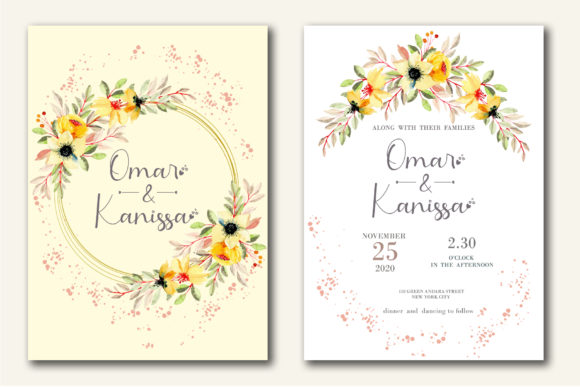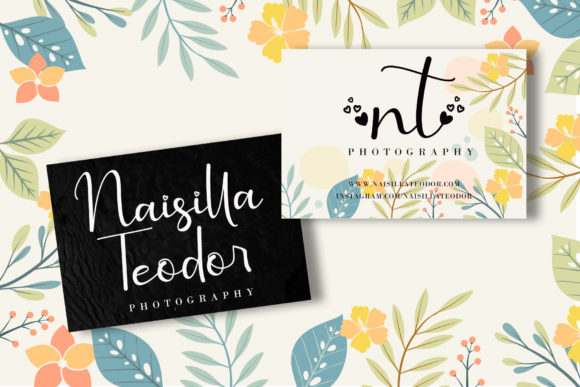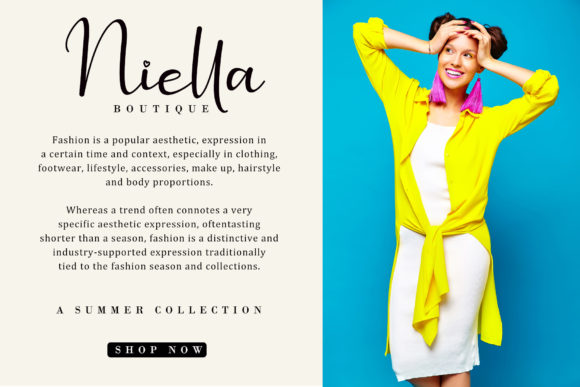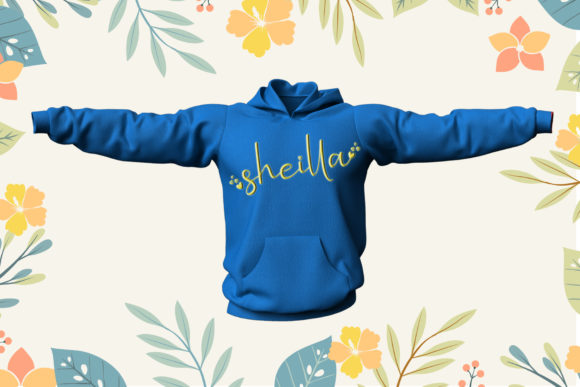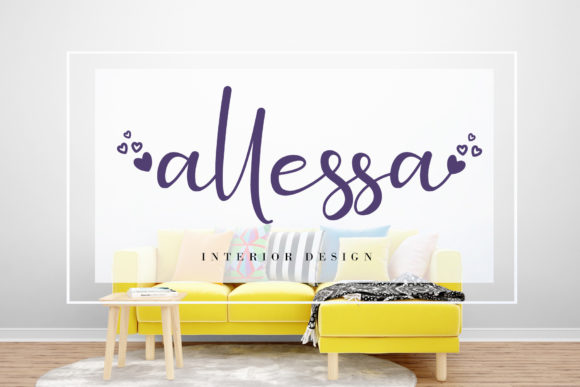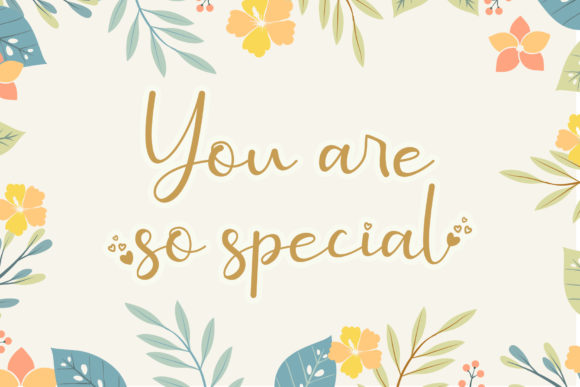
Introducing Benillia Font: The Sweet and Delicate Handwritten Font for Your Design Needs
Are you a designer or crafter looking for a font that can add a touch of elegance and sophistication to your designs? Look no further than Benillia Font. This beautiful handwritten font is perfect for a variety of design projects, including wedding invitations, thank you cards, quotes, greeting cards, logos, business cards, and more.
What Makes Benillia Font So Special?
Benillia Font is a sweet and delicate handwritten font that features a varying baseline, smooth lines, gorgeous glyphs, and stunning alternates. Its unique characteristics make it stand out from other fonts, giving your designs a personal and handmade touch. Whether you’re creating a romantic wedding invitation or a simple thank you card, Benillia Font is sure to impress.
Weddings and special events are a perfect match for Benillia Font. Its elegant and refined appearance makes it ideal for creating beautiful wedding invitations, save the dates, and thank you cards. The font’s delicate lines and smooth curves will add a touch of romance and sophistication to your designs, making them truly unforgettable.
Versatile and Easy to Use
Benillia Font is not just limited to wedding designs. Its versatility makes it suitable for a wide range of projects, including:
- Wedding invitations and save the dates
- Thank you cards and greeting cards
- Quotes and posters
- Business cards and stationery
Key Features of Benillia Font
Here are some of the key features that make Benillia Font so special:
- Varying baseline for a natural, handwritten look
- Smooth lines and curves for a elegant appearance
- Gorgeous glyphs and stunning alternates for added creativity
- Perfect for designs that need a personal and handmade touch
Why Choose Benillia Font?
With so many fonts available, why choose Benillia Font? Here are just a few reasons:
- Unique and elegant appearance that will make your designs stand out
- Versatile and easy to use for a wide range of projects
- High-quality font with smooth lines and gorgeous glyphs
- Perfect for designers and crafters who want to add a personal touch to their designs
Benillia Font is a beautiful and elegant handwritten font that’s perfect for designers and crafters who want to add a touch of sophistication to their designs. Its unique characteristics, versatility, and ease of use make it an ideal choice for a wide range of projects. Whether you’re creating a wedding invitation, a thank you card, or a logo, Benillia Font is sure to impress.